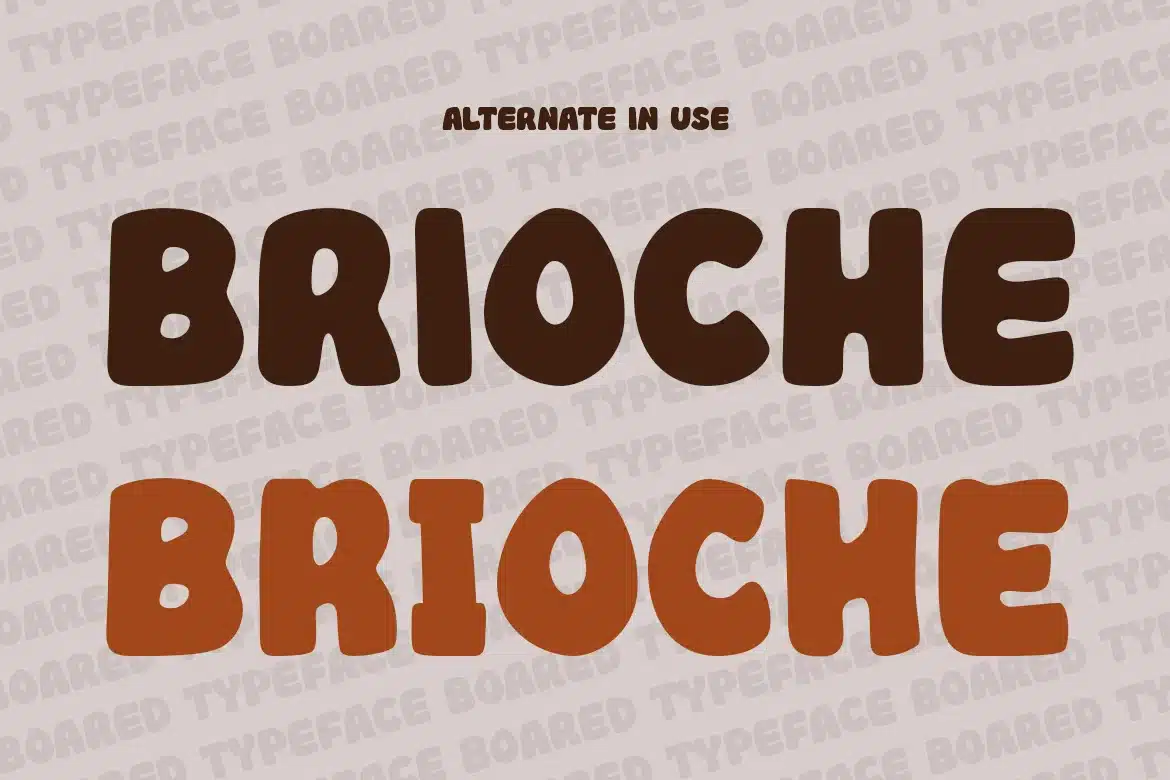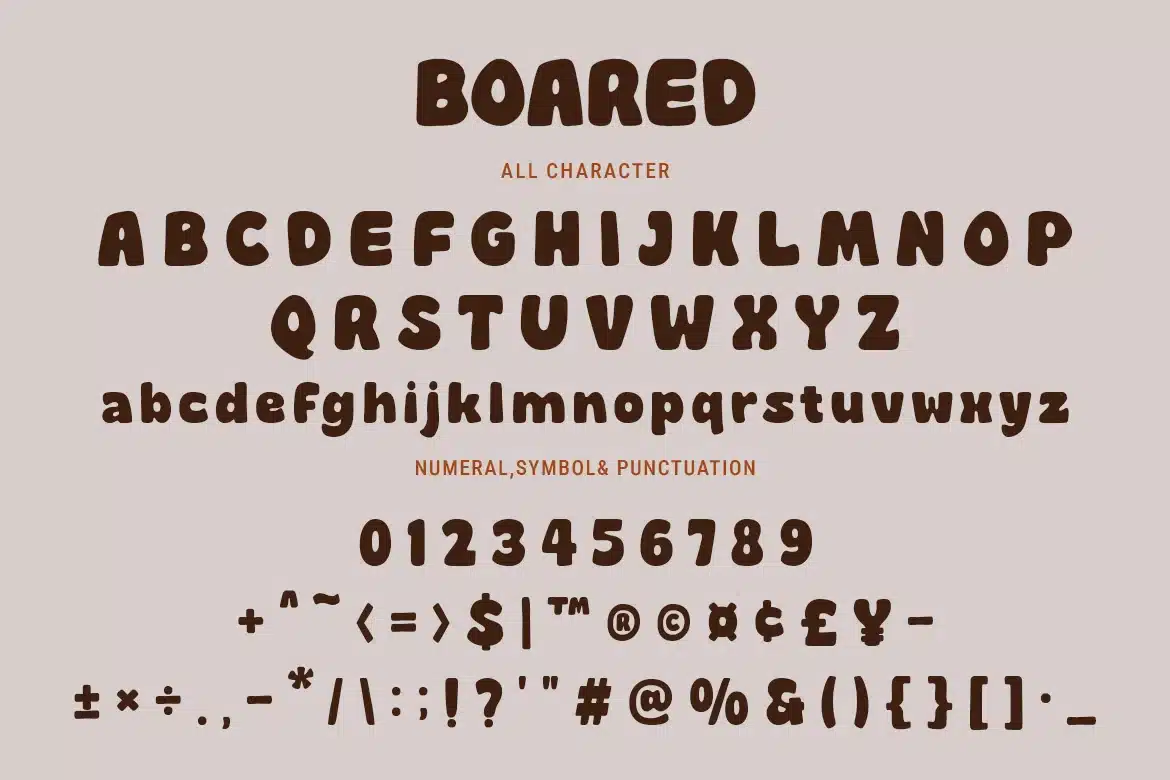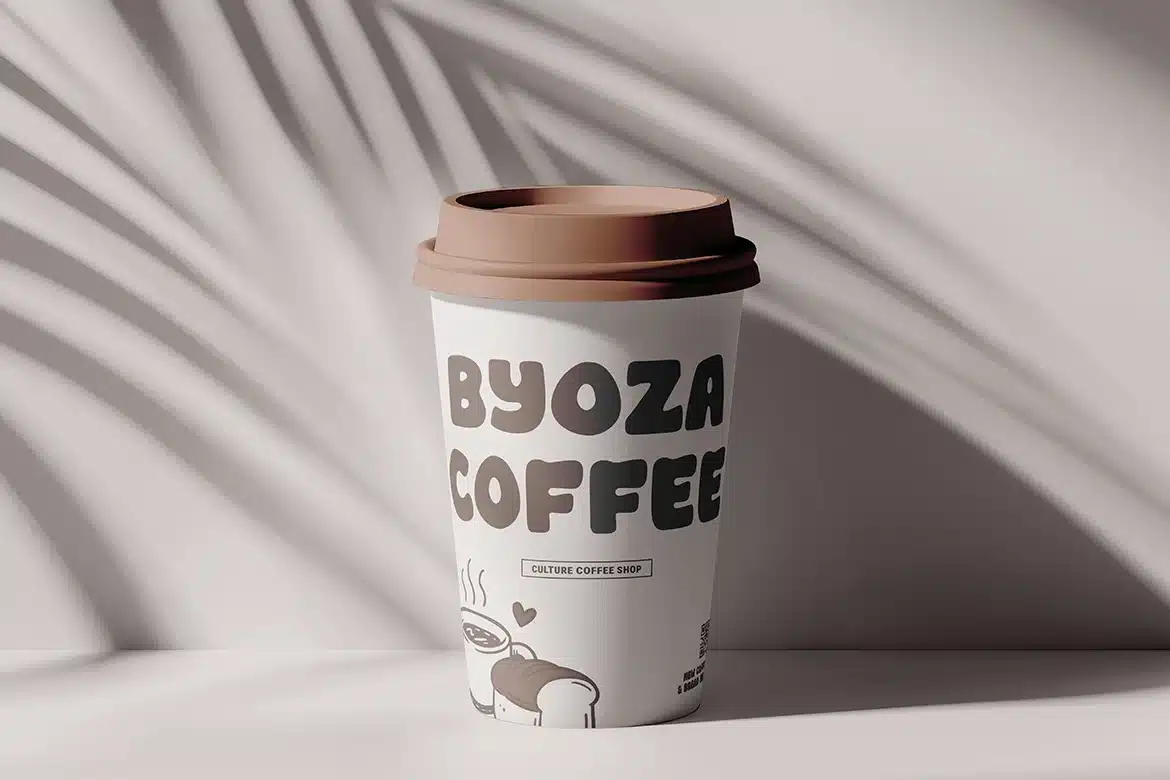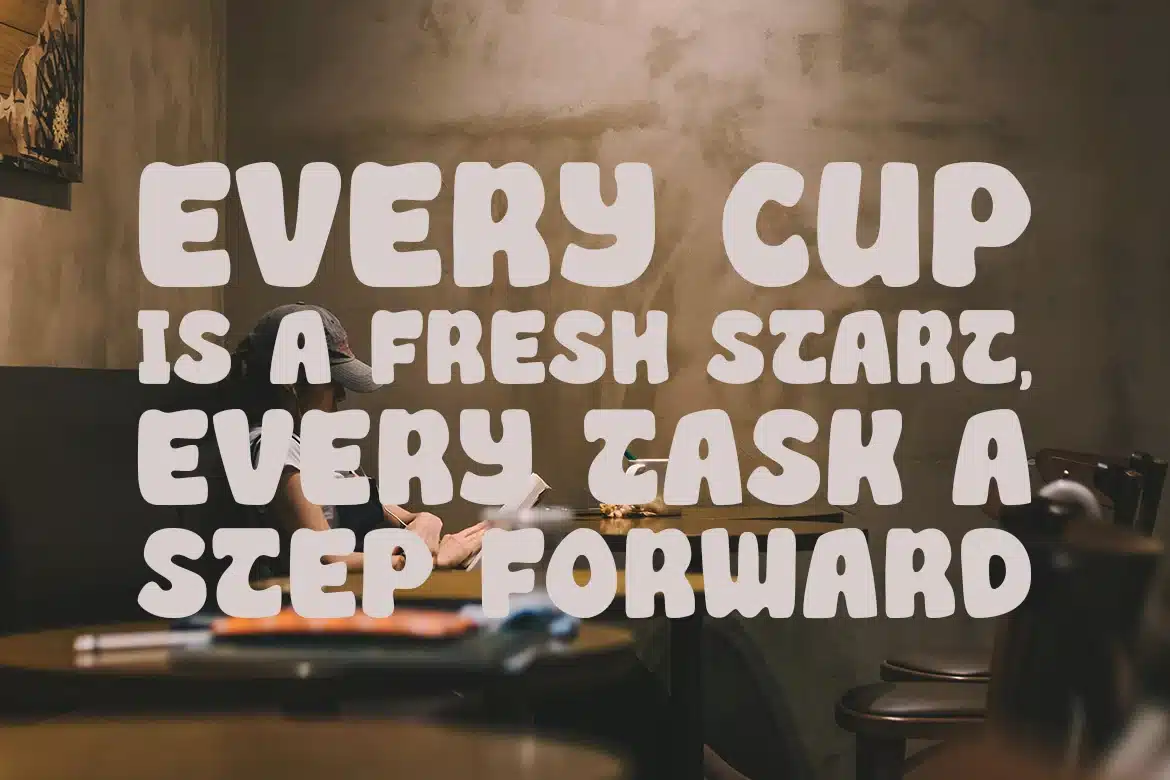
Boared – Hand Drawn Playful Display Font
Boared is a hand drawn display font with organic shapes and a friendly personality. Ideal for food branding, bakery packaging, posters, and creative projects that need a warm handmade feel.
- Uppercase Letters
- Ligature & Alternate Character
- Unique Hand-Drawn Style